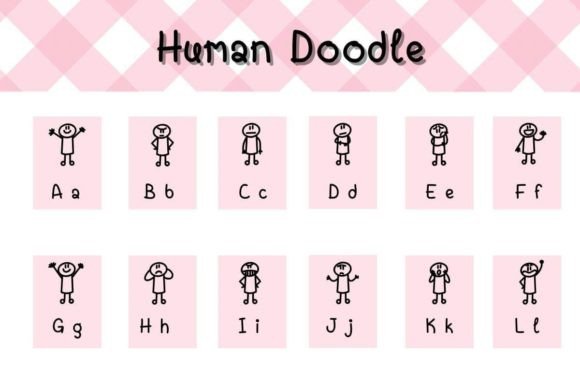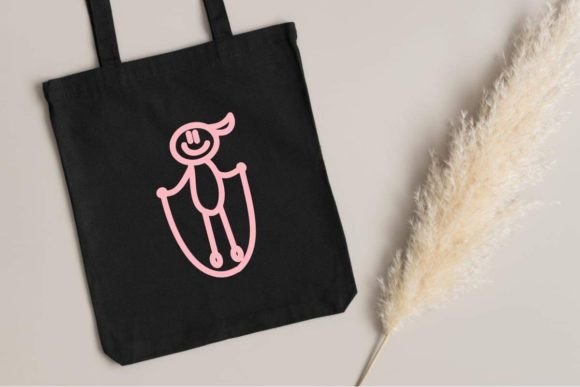
Human Doodle is a playful dingbat font featuring doodles of humans engaged in various sports activities. From running and dancing to yoga and more, these charming illustrations add a fun and dynamic element to your designs. Perfect for adding a touch of whimsy to posters, invitations, or any project needing a sporty flair, Human Doodle is sure to bring a smile to your audience’s faces.
Human Doodle Font